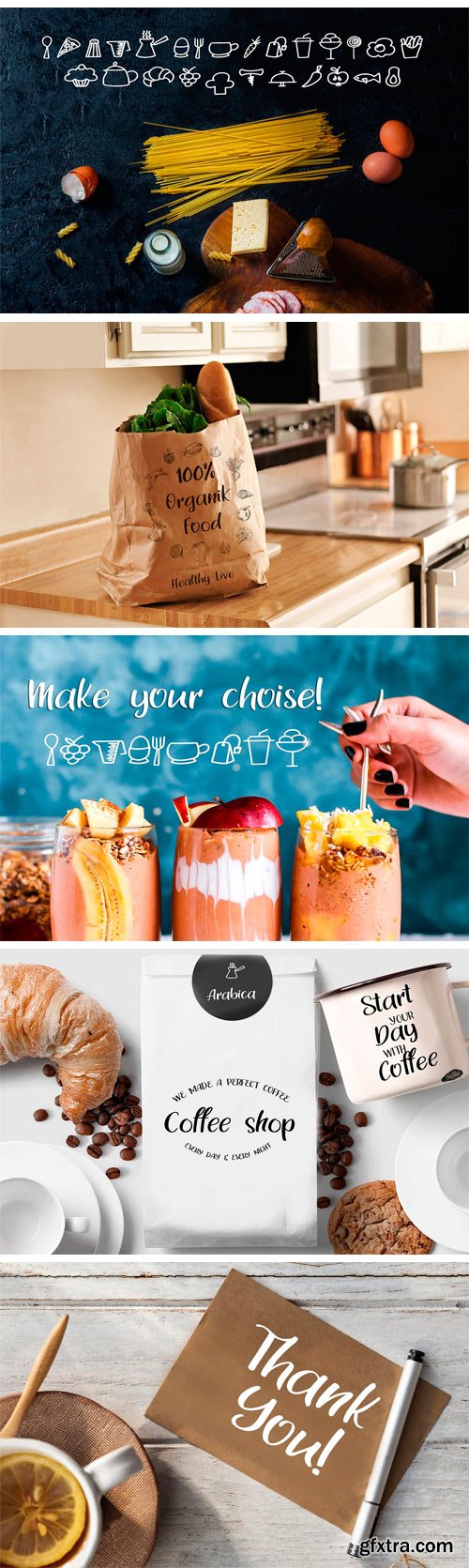
CM - Aroma Plantation - Font Duo 3393503
Say hello to Aroma Plantation, script font duo! Aroma Plantation is a fancy handlettering typeface with a clear style, good mood, and dramatic movement. It's allowing you to create beautiful hand-made typography in an instant.
Also ideit font, which consists of 26 characters about food. With these fonts, we can create a brand for your cafe or restaurant, or just decorate your website or blog about recipes.